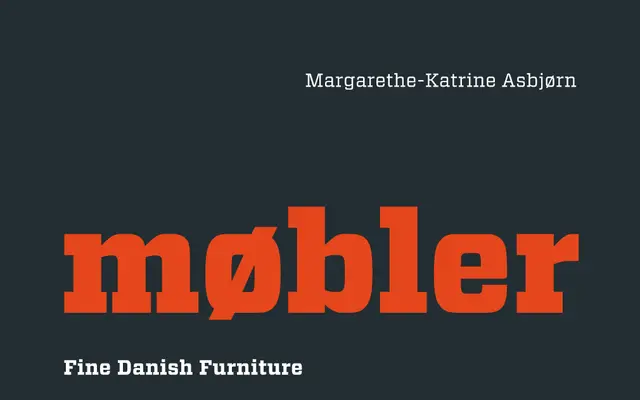
Vitesse
Hoefler & Co · Jonathan Hoefler, Tobias Frere-Jones · 2010
Vitesse specimen from Hoefler & Co
A geometric slab from Hoefler & Co built on a softened square skeleton, drawing on motorsport and industrial lettering rather than the literary slab tradition.
A geometric slab serif by Jonathan Hoefler and Tobias Frere-Jones, drawn around a square armature with gently rounded corners. Six weights from Thin to Black with matching italics. Reaches for the visual world of dashboards, race liveries and industrial signage, which makes it useful for sports, automotive and technical brands wanting a slab that feels engineered rather than bookish.
H&Co classify Vitesse as a geometric slab serif, built on a square skeleton with rounded corners, evoking the lettering of motorsport, dashboards and industrial signage rather than the literary slab tradition.